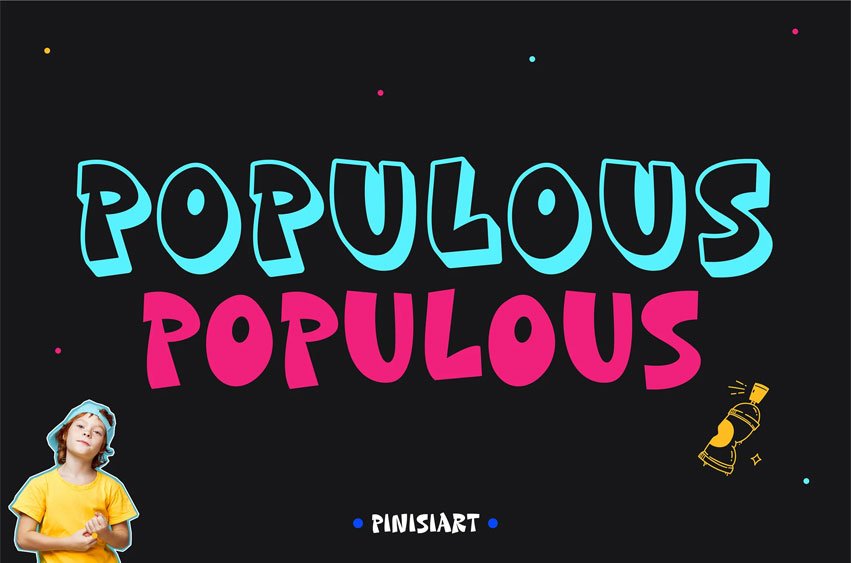
Populous Font is a bold, cartoon-style display font with chunky proportions, exaggerated bounce, and lively curves that scream personality. This font radiates urban streetwear energy and has a playful, graffiti-adjacent feel, making it perfect for loud, youthful, and dynamic projects. With hand-lettered quirks, high contrast strokes, and a rhythmic, bouncy baseline, Populous is a go-to typeface for expressive, attention-demanding design across kids’ fashion, pop culture packaging, and digital branding.
Whether you’re launching a streetwear kids brand, creating eye-catching event posters, or designing an animated YouTube intro, Populous brings instant impact with its bold outline and energetic shapes. It’s built to turn words into visual shouts—perfect for brands that want to stay loud, fun, and fresh. This font captures the street-culture-meets-cute-comic aesthetic that resonates with Gen Alpha audiences and their visual-first world.
- Graffiti-style curves with comic book energy
- Mix of solid and outlined variants for layering and effect
- Built to capture attention in bold headlines and merch designs
- Ideal for kid brands, poster art, YouTube thumbnails, and youth-focused campaigns
- Clean outlines and fat terminals make text feel loud and fun